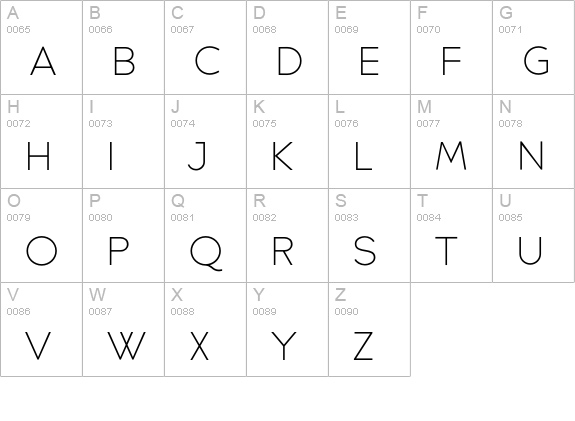
Glode Light Font Details
Glode Light is a refined, elegant variant in the Glode typeface family \xE2\x80\x94 well suited to elegant body text, refined sub-headings, and luxury branding.
Glode Light font is a modern and elegant typeface that exudes sophistication and style. Its sleek and clean lines make it perfect for a wide range of design projects, from branding to editorial design. The light weight of the font adds a sense of delicacy and refinement to any text it is applied to. What makes Glode Light font even more appealing is that it is available for free download at FontsMarket.com. This means that you can easily access this beautiful typeface without any cost, making it a fantastic choice for designers looking to add a touch of elegance to their work without breaking the bank. With its timeless design and versatility, Glode Light font is sure to become a go-to choice for all your typographic needs.